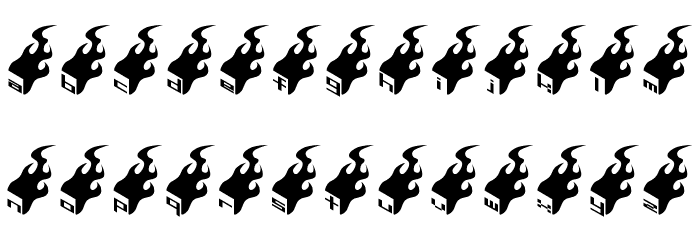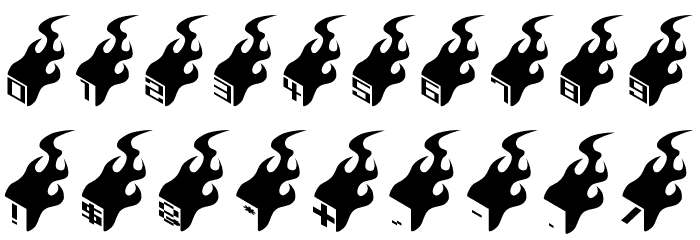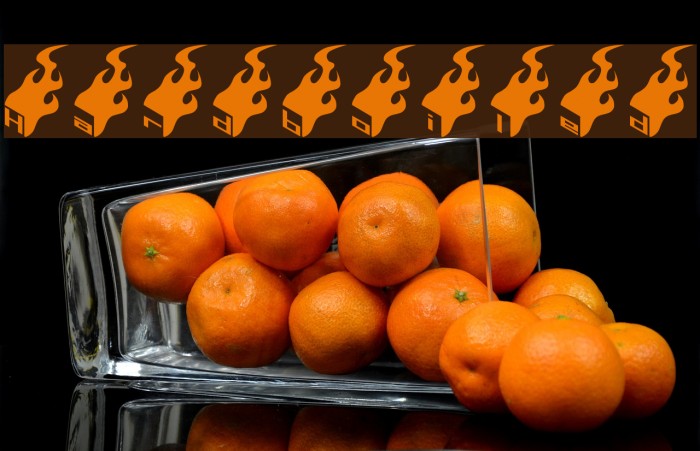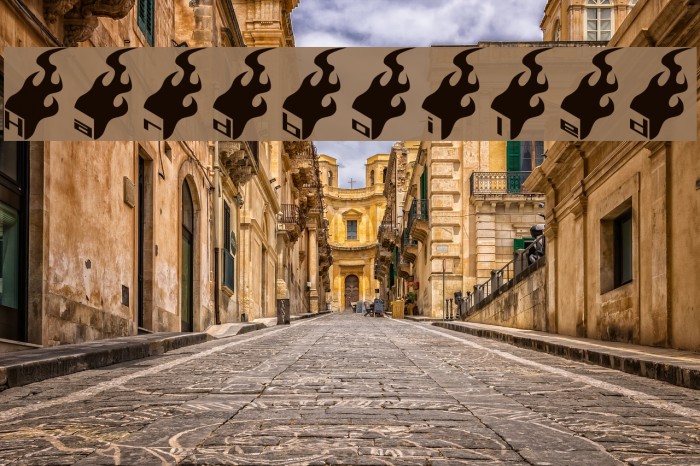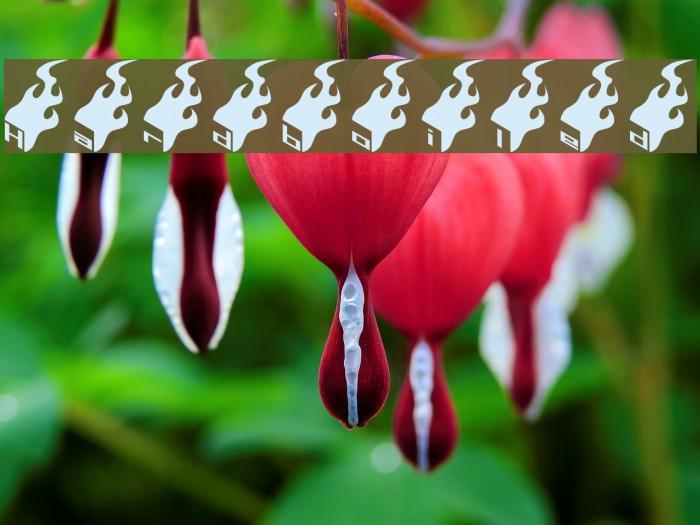
Hardboiled Font
This font features a bold and dynamic design with each character engulfed in stylized flames, creating a sense of movement and intensity. The characters are blocky and geometric, giving them a strong and imposing presence. The flames add a decorative element that makes the font stand out, ideal for attention-grabbing designs. The overall style is modern and edgy, suitable for projects that require a bold statement. The font's unique appearance makes it perfect for use in creative and unconventional contexts.
A bold, flame-embellished font with a modern and edgy style.
- Proposed Projects: Ideal for music album covers, video game titles, posters, and branding for extreme sports or events.
- Overall Style: Modern, Decorative